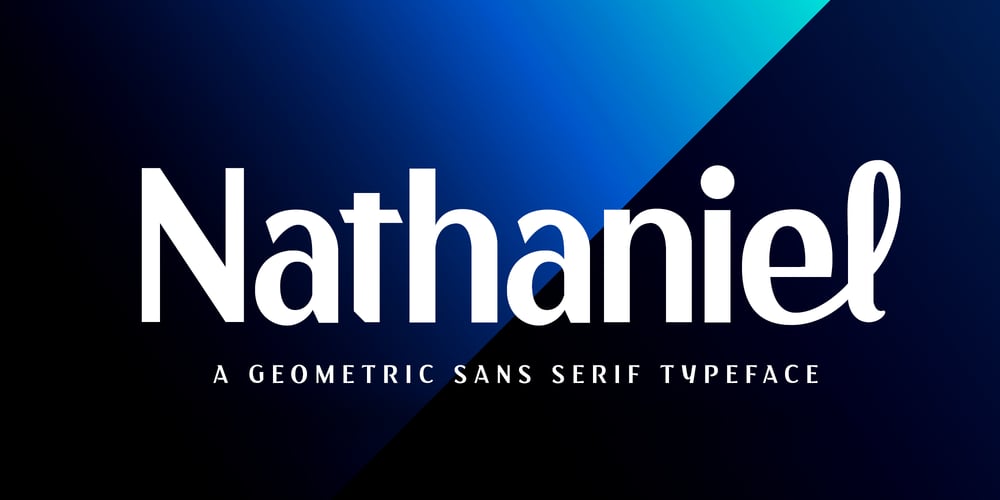
Nathaniel Font Family was designed by Muhammad Afif Ersya and published by Mevstory Studio. Nathaniel contains 2 styles and family package options. Nathaniel The “Nathaniel ” font family epitomizes beauty and elegance in every character. With two distinct styles, Regular and Italic, this font is the perfect choice to infuse sophistication into your design projects.Key Features: Elegance and Beauty: Nathaniel has been meticulously crafted to ensure each letter is visually captivating. It’s an ideal choice for creating stunning quotes and long paragraphs in your designs.Feminine Appeal: This font is perfectly suited for designs with a feminine touch, such as fashion, magazines, and logos with a simple yet enchanting design.Artistic Pairings: Nathaniel seamlessly complements script fonts, enhancing the artistic appeal of your projects. Combine these two font styles to create unique and attention-grabbing designs.Recommended Uses:Inspirational Quote Designs: Use Nathaniel to create motivational and inspirational quotes for social media, posters, or merchandise.Fashion and Magazine Design: Nathaniel is the perfect choice to create a luxurious and feminine look in magazine layouts and fashion promotions.Simple and Classy Logos: Craft simple yet character-filled logos using Nathaniel to represent your brand with unmatched style.Nathaniel is the perfect fusion of beauty and functionality, elevating your design projects to the next level. With this font, you’ll be able to create impressive and captivating works. Get Nathaniel today and start making your design projects stand out.Don’t miss out on this opportunity! Get Nathaniel now and start inspiring the world with your captivating designs.